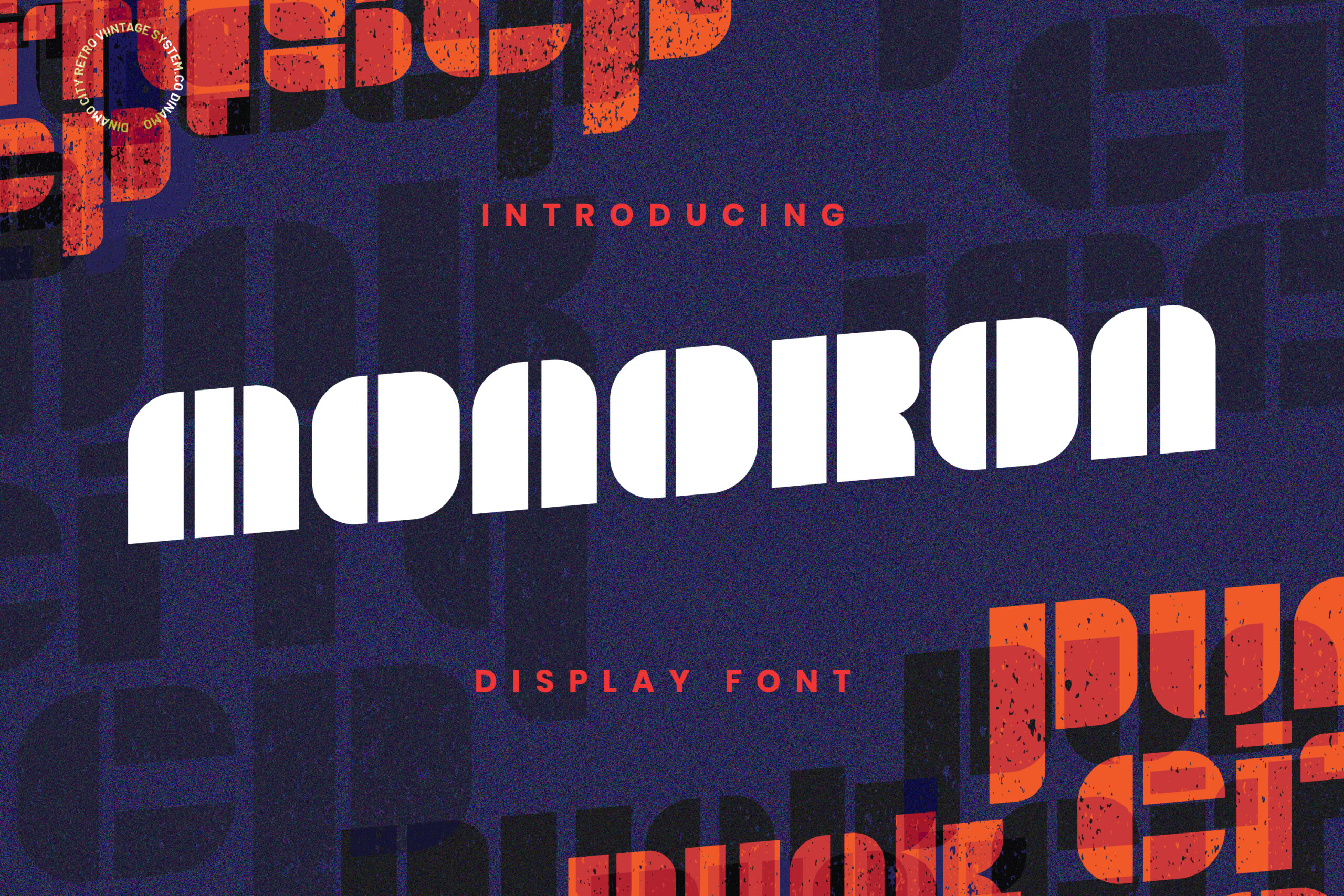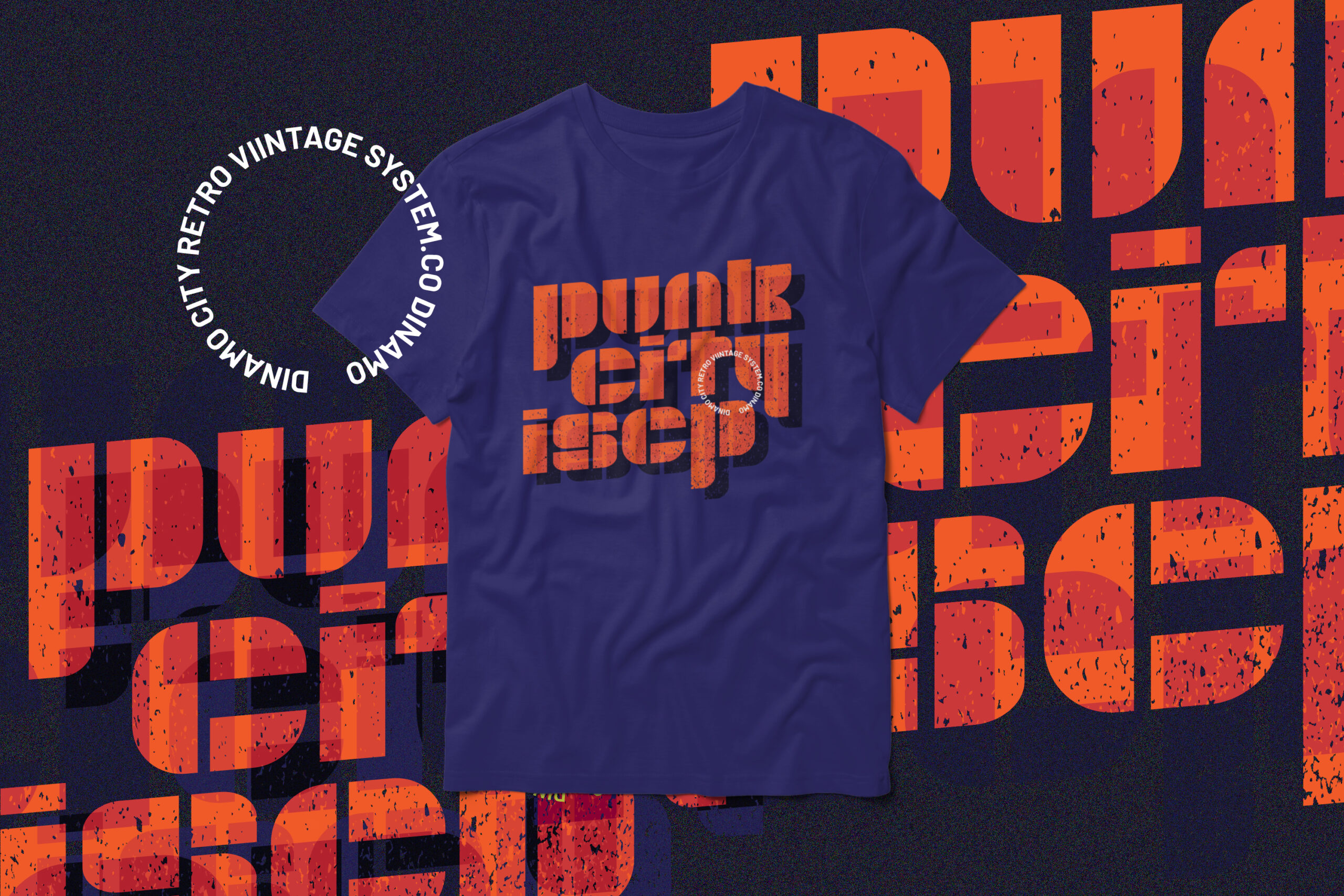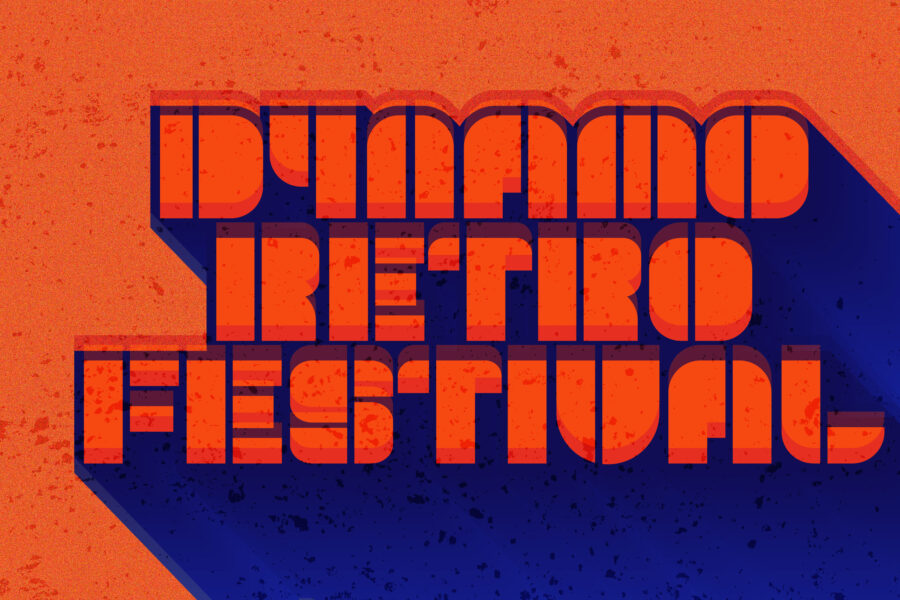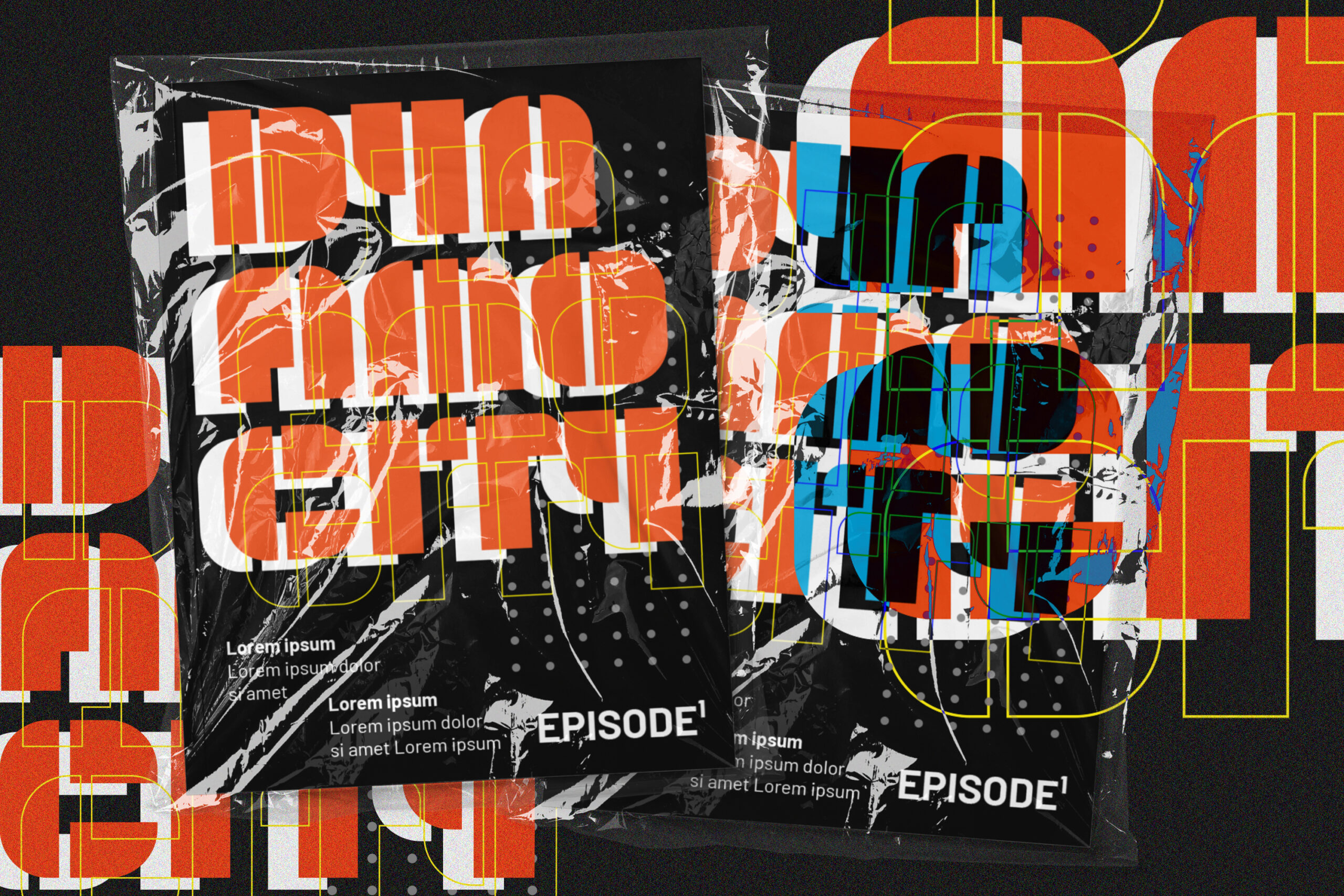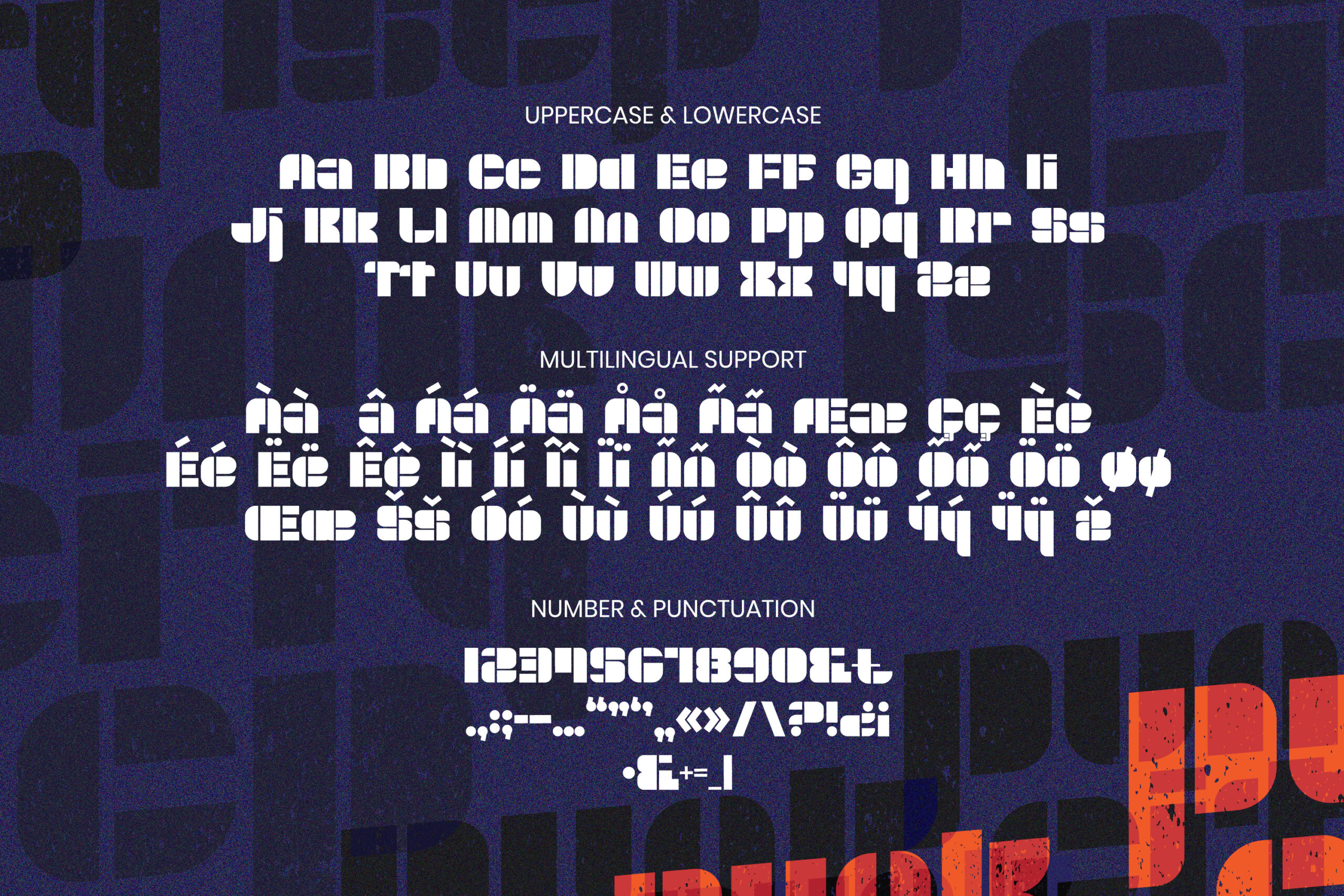
Monoron is a bold and experimental display font that draws its strength from geometric modularity and retro futurism. With its ultra-wide letterforms and stencil-inspired cuts, this font offers a statement look that’s perfect for album covers, streetwear branding, posters, and bold editorial layouts. The design channels strong rhythm and repetition, making every word feel like a graphic element.
Perfect for designers who want to embrace a rebellious yet structured visual style, Monoron comes with uppercase and lowercase letters, punctuation, numbers, and multilingual support. Whether you’re working on music festival branding, punk-inspired apparel, or standout headlines, Monoron brings a heavy, unapologetic attitude that commands attention.